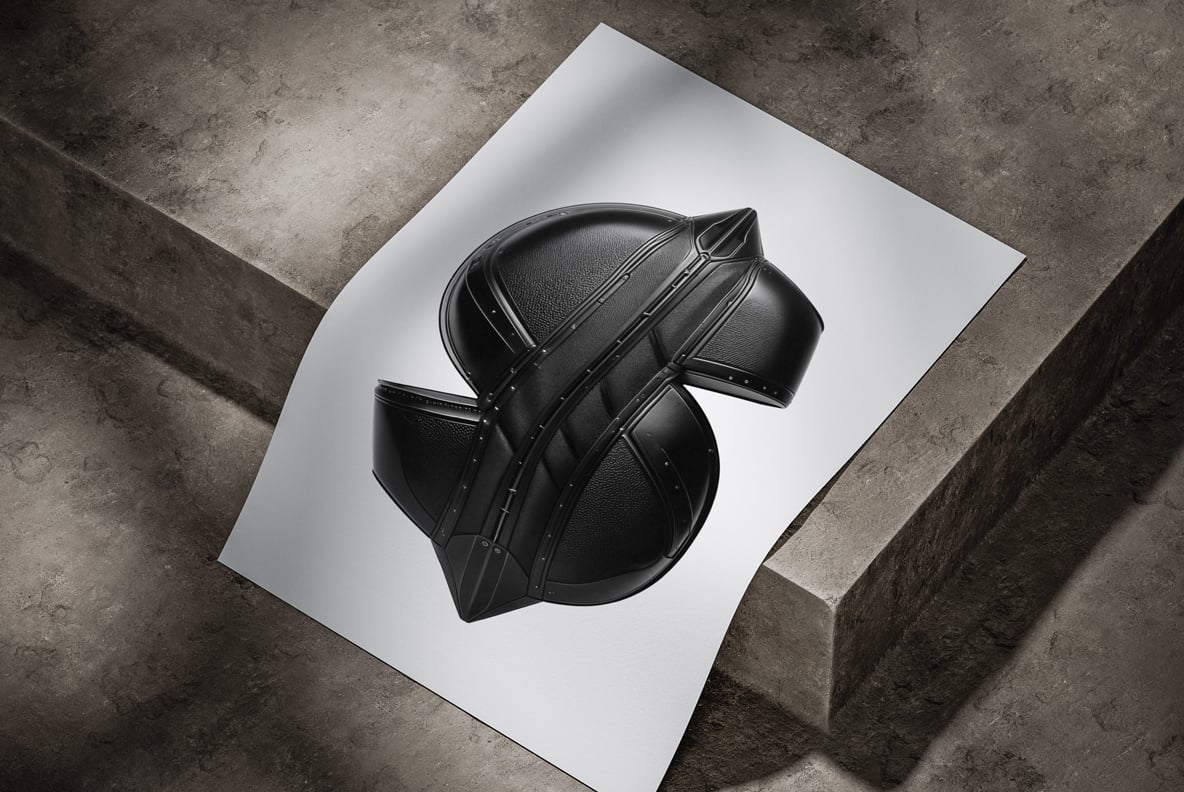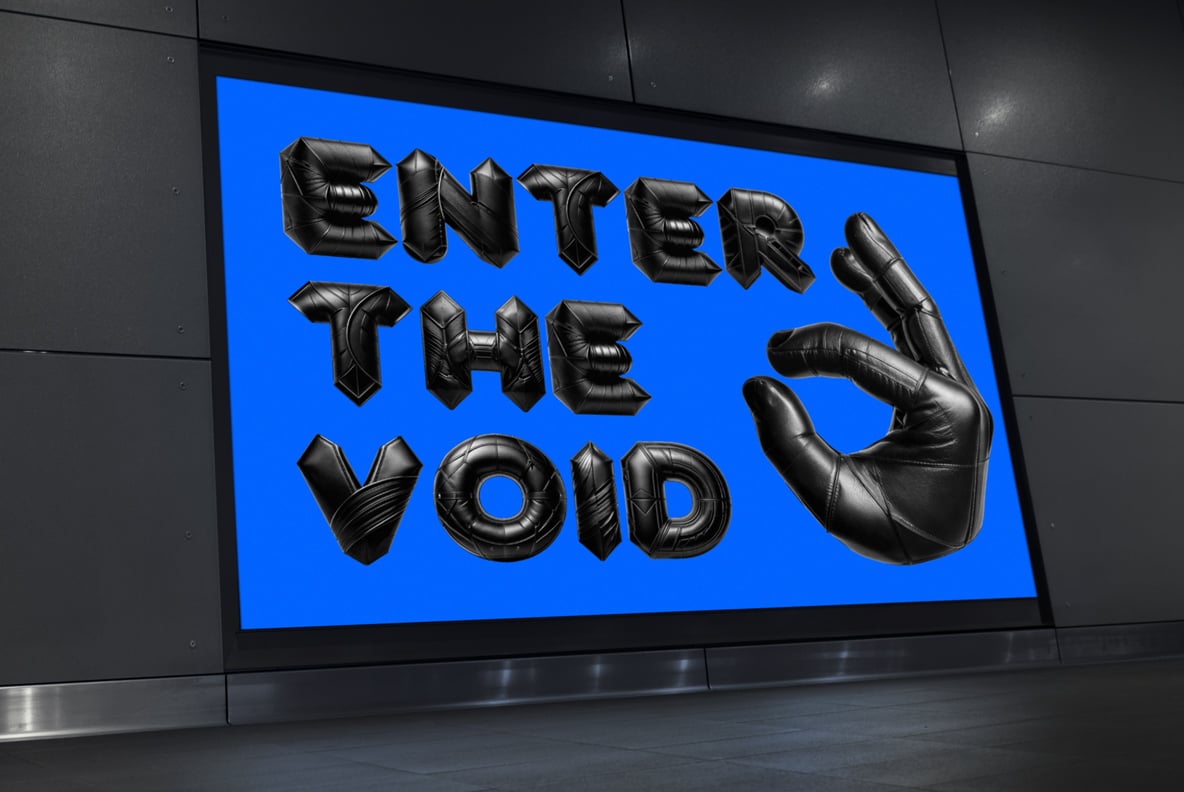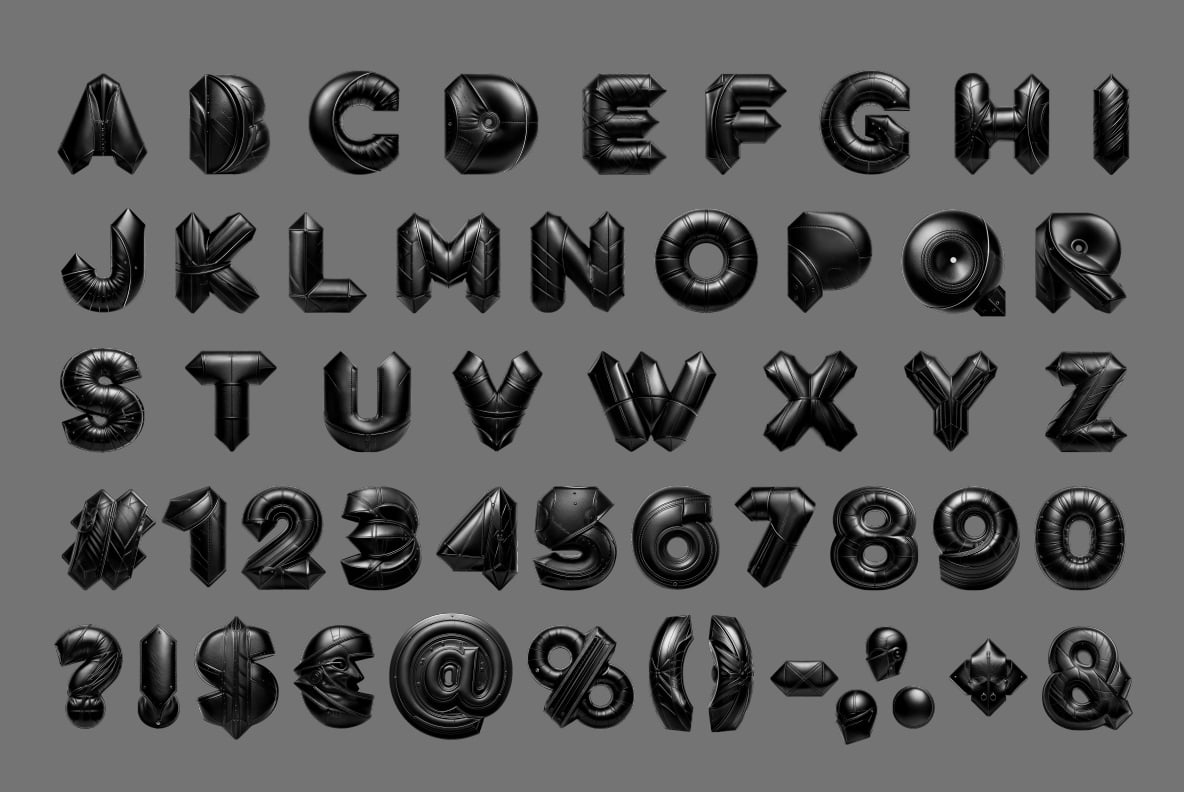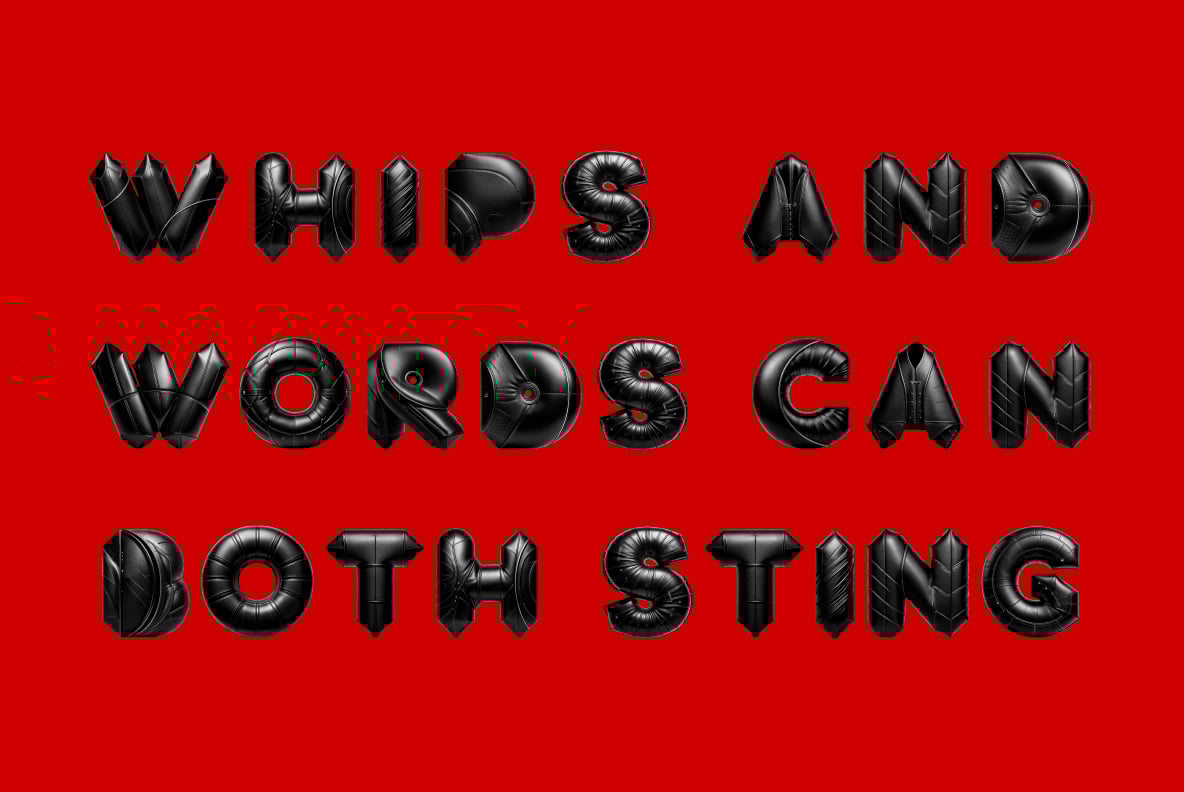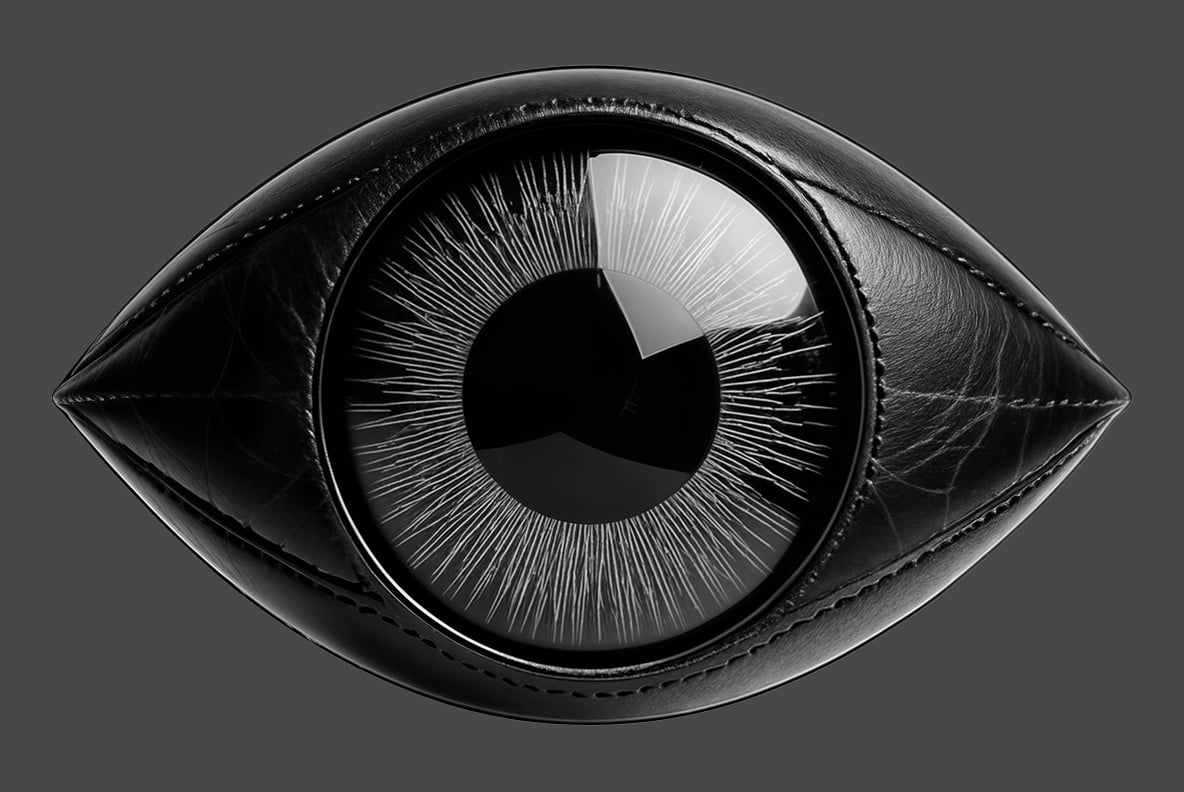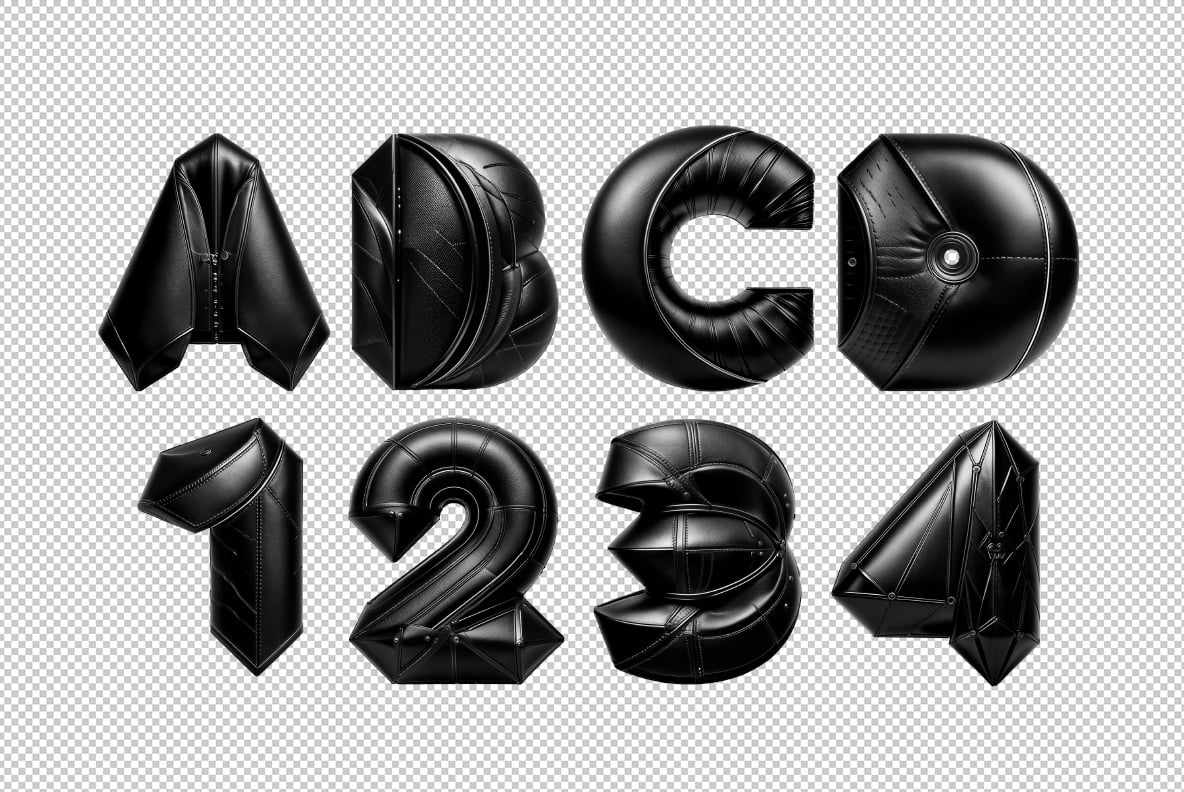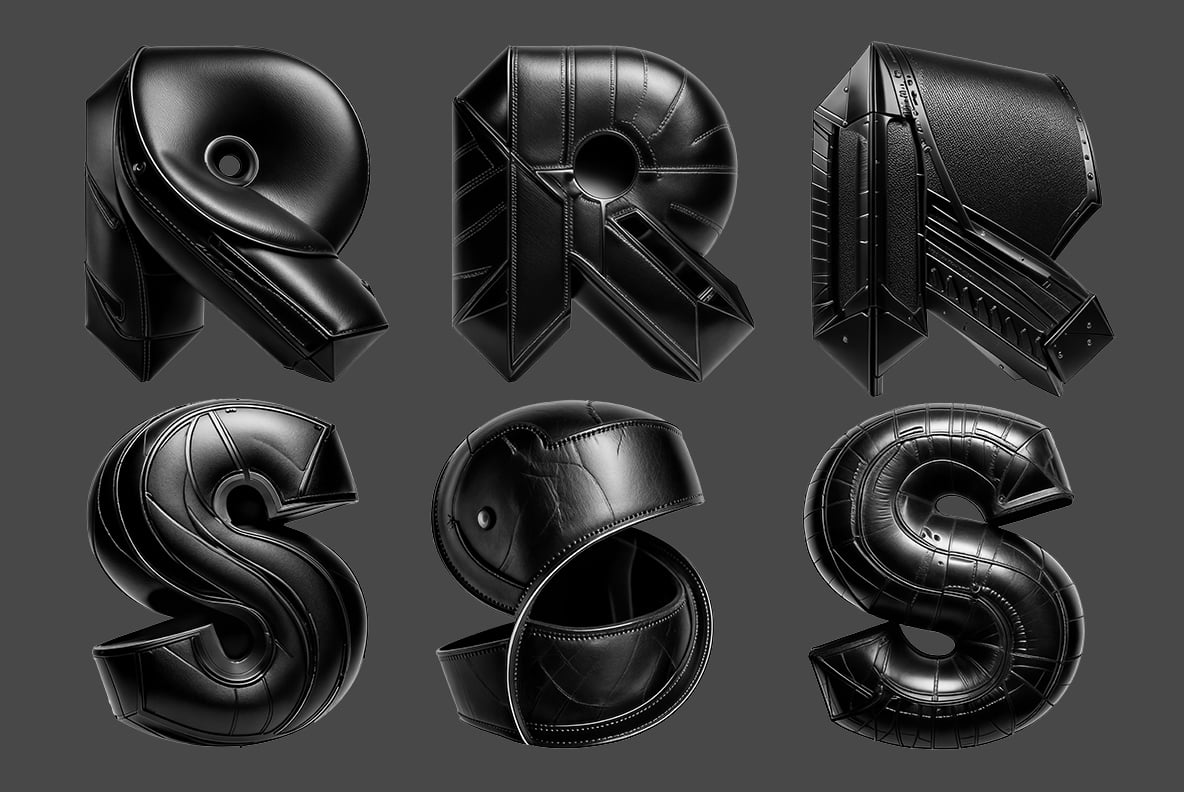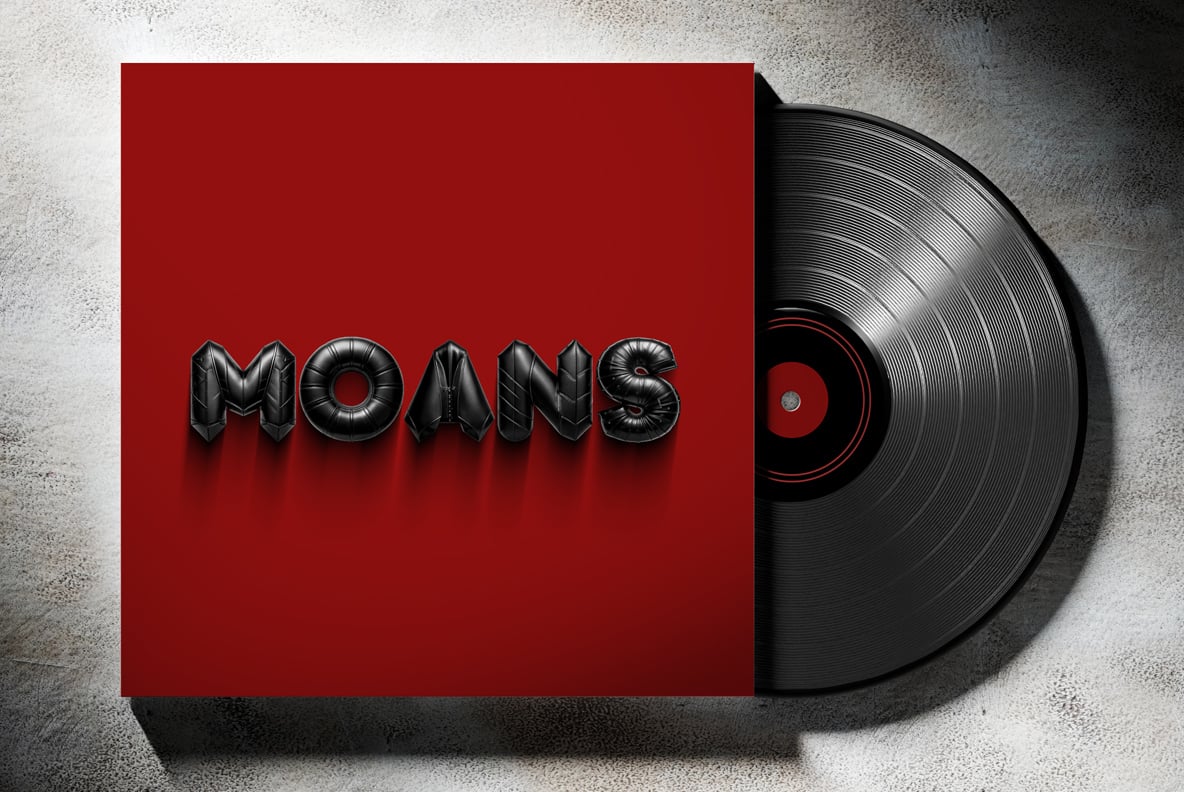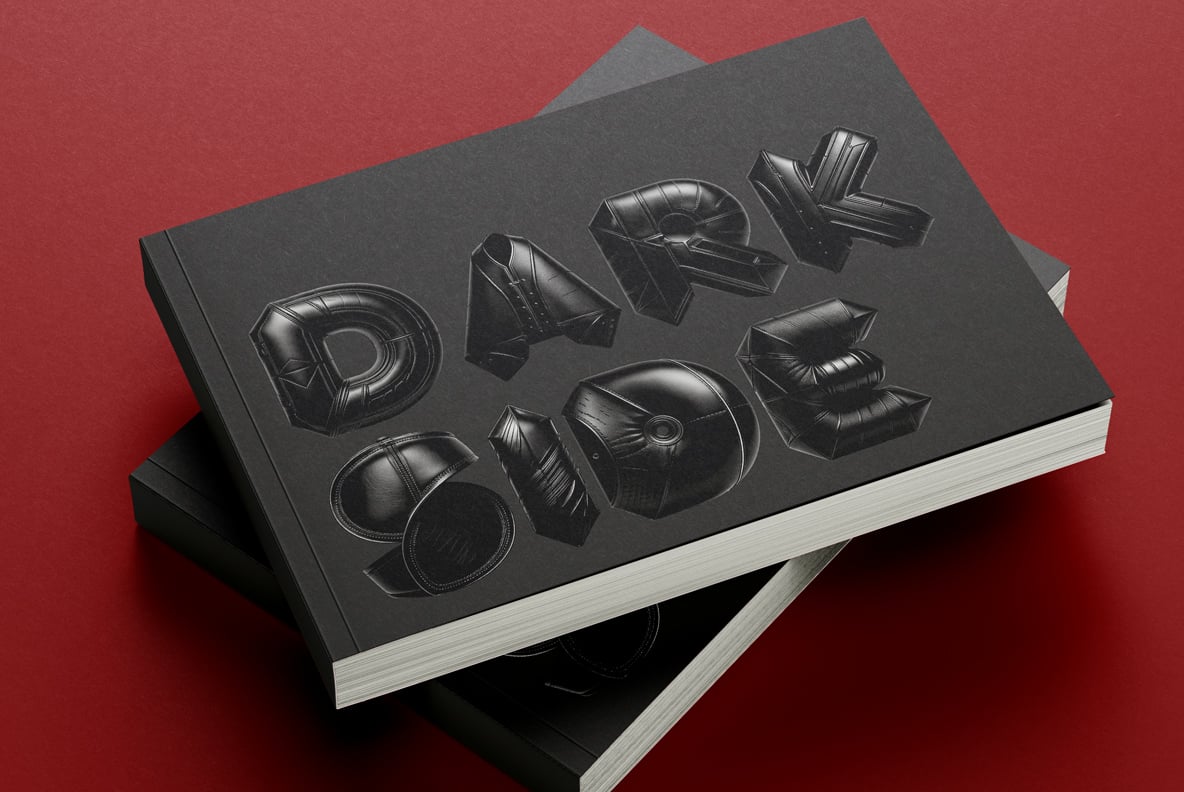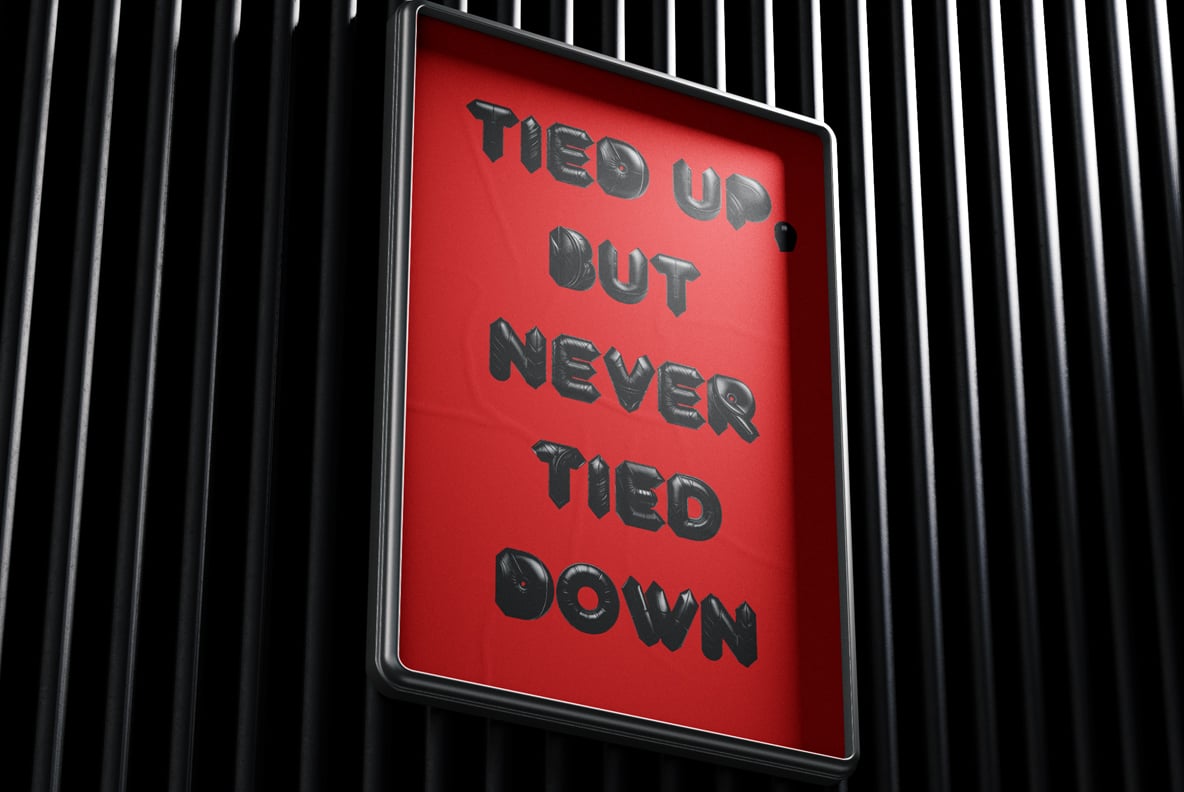
Domina Font
Meet Domina Font — a bold, provocative typeface draped in glossy black leather and high-voltage attitude. Inspired by the world of BDSM and fetish fashion, each letter and number curves with dominance and power, stitched tight like a corset and gleaming like latex under dim lights. This font doesn’t whisper — it commands. With its sculpted, high-shine texture and seductive edge, Domina is perfect for designs that crave control, rebellion, or raw desire. Whether you're crafting a love letter from the dark side or branding with unapologetic confidence, Domina Font brings the heat, the edge, and the elegance of kink.
A high definition OpenType Font. Contains uppercase characters, numerals and basic punctuation. (Draw height roughly 800 pixels). All letters and glyphs that comprises this font you can see on the preview.